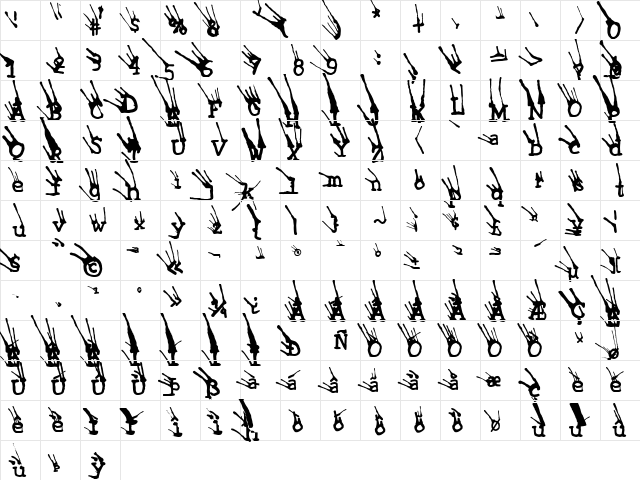
LinotypeGrassy ExtraBold ExtraBold
Design Context for LinotypeGrassy ExtraBold Typeface
LinotypeGrassy ExtraBold is a composed and adaptable typeface that performs quietly and consistently across a wide range of design contexts. The heavy weight commands attention and anchors typographic hierarchies.
Pro Tip: Use LinotypeGrassy ExtraBold in both headline and body roles to test its range before committing to a single application.